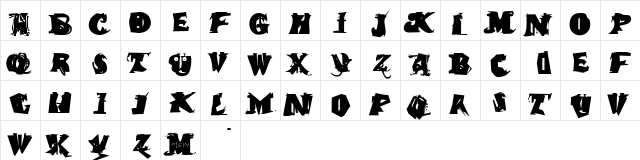
QuasimodoCaps Regular
Design Context for QuasimodoCaps Typeface
QuasimodoCaps is a composed and adaptable typeface that performs quietly and consistently across a wide range of design contexts.